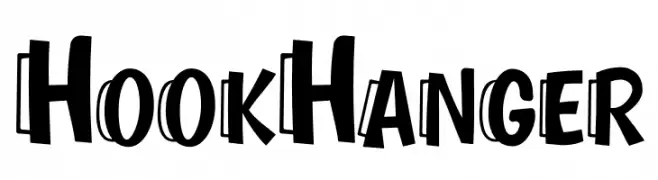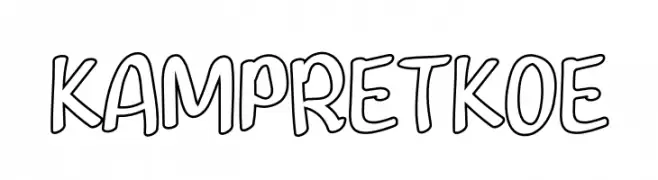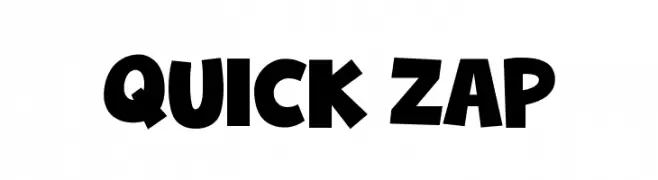
A bold, playful font with a three-dimensional effect and cartoonish style.
A playful, hand-drawn font with a bold, cartoonish outline style.
A bold, playful font with a cartoonish and dynamic style.
A playful, bold, and three-dimensional cartoon-style font with thick outlines.
A bold, playful font with a three-dimensional, cartoonish style.
A bold, playful font with cartoonish, uneven strokes and quirky cutouts.
A bold, playful font with a cartoonish style and consistent stroke weight.
A playful, bold font with rounded, cartoonish characters.
A playful, bold font with irregular, cartoonish shapes and dynamic style.
A bold, playful outline font with a cartoonish and energetic style.